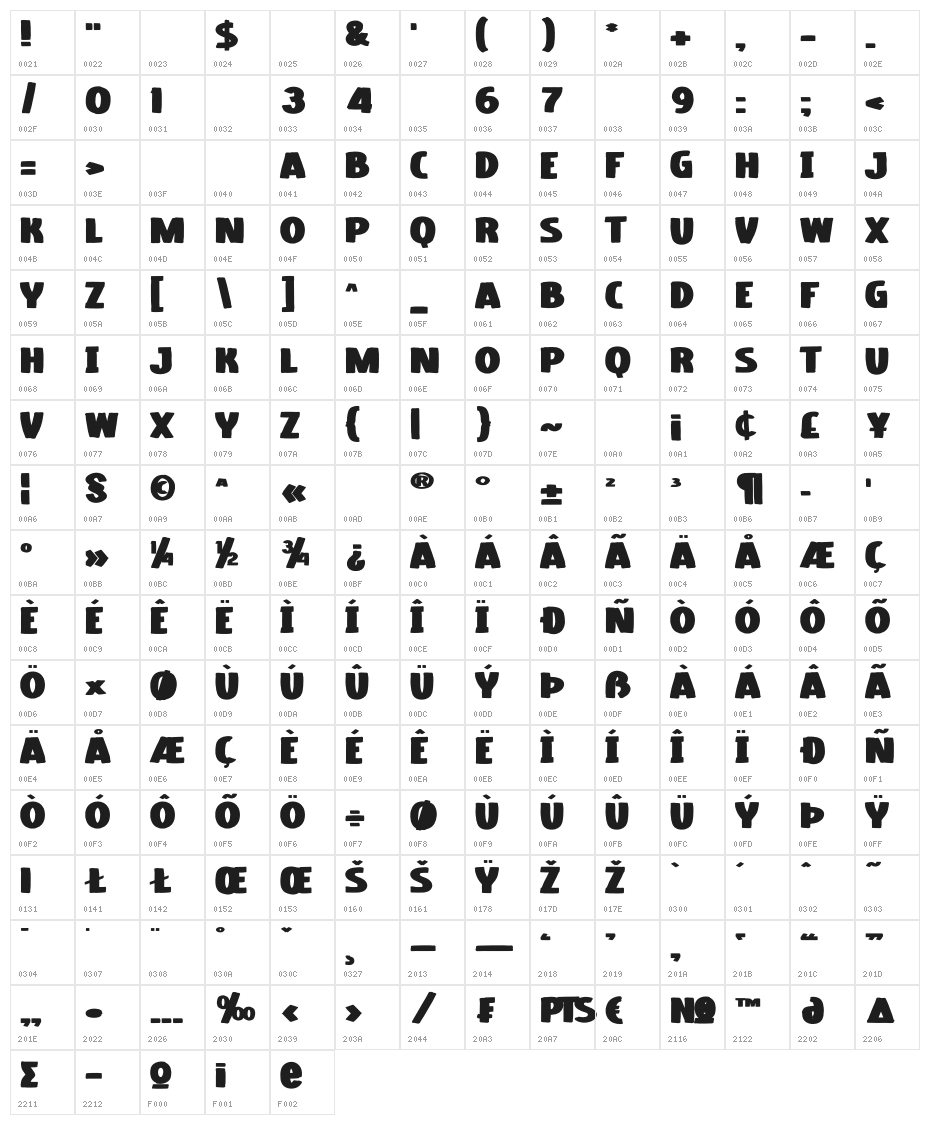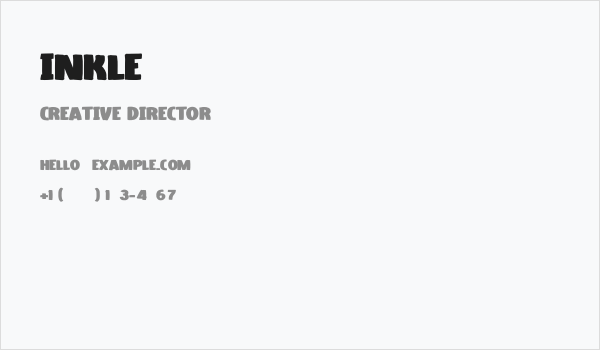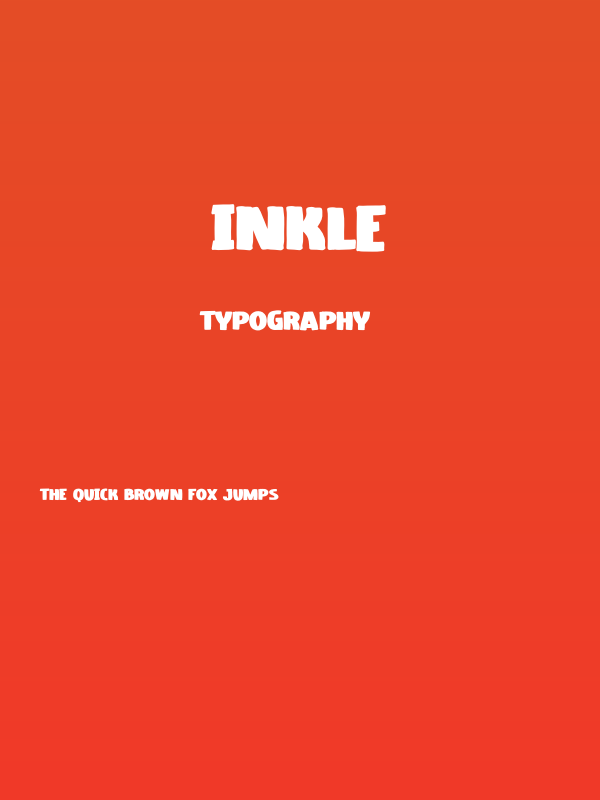
Inkle Font
Inkle Description
This font features bold, rounded characters with a playful and dynamic appearance. The letters are thick and slightly irregular, giving them a hand-drawn feel. The uppercase and lowercase letters maintain a consistent style, with a strong presence and a friendly vibe. The numbers are equally bold, ensuring readability and impact. Special characters are designed to match the overall aesthetic, making them suitable for creative and informal projects. The font's unique style makes it stand out, perfect for designs that require a touch of personality and flair.
| Overall Style | Playful, Hand-drawn |
| Use Case | Headlines, Posters, Branding |
| Proposed Projects | Ideal for children's books, playful branding, posters, and creative social media graphics. |